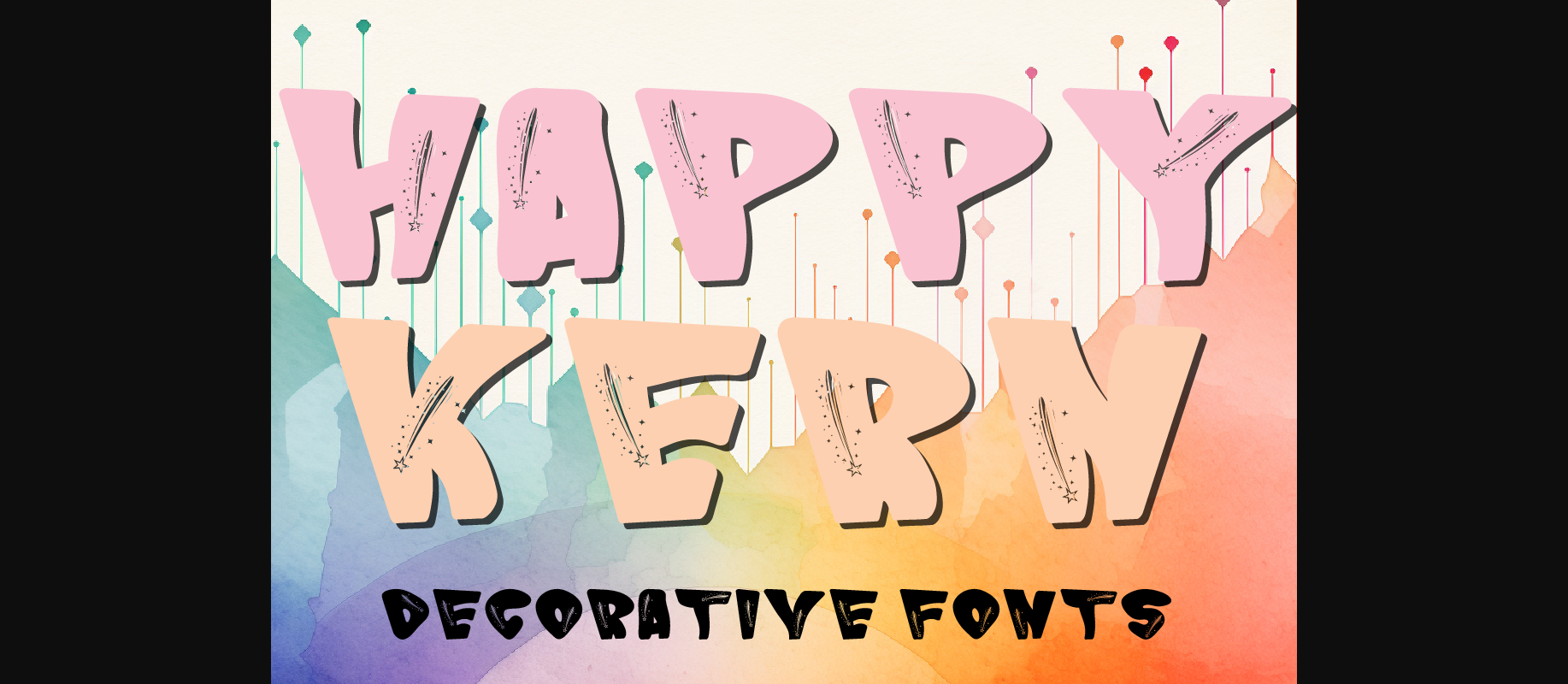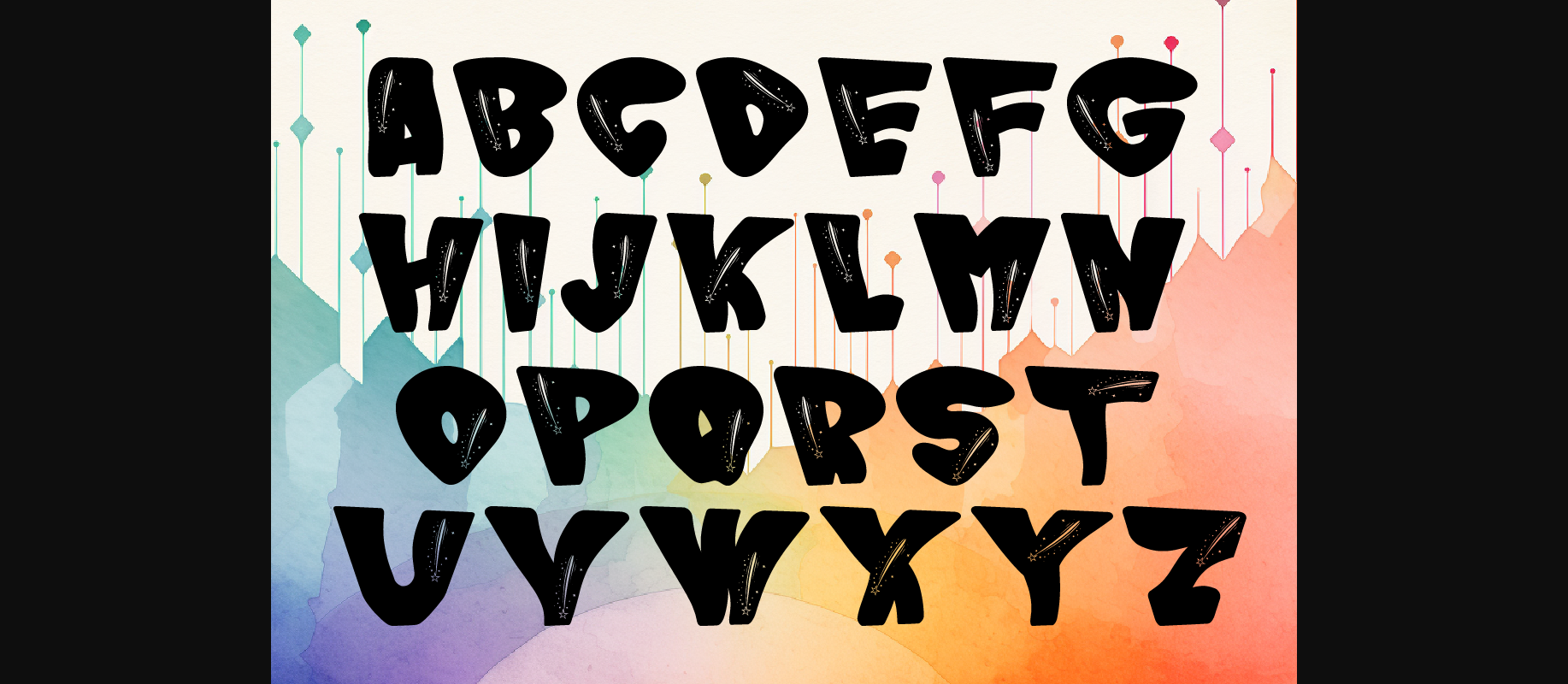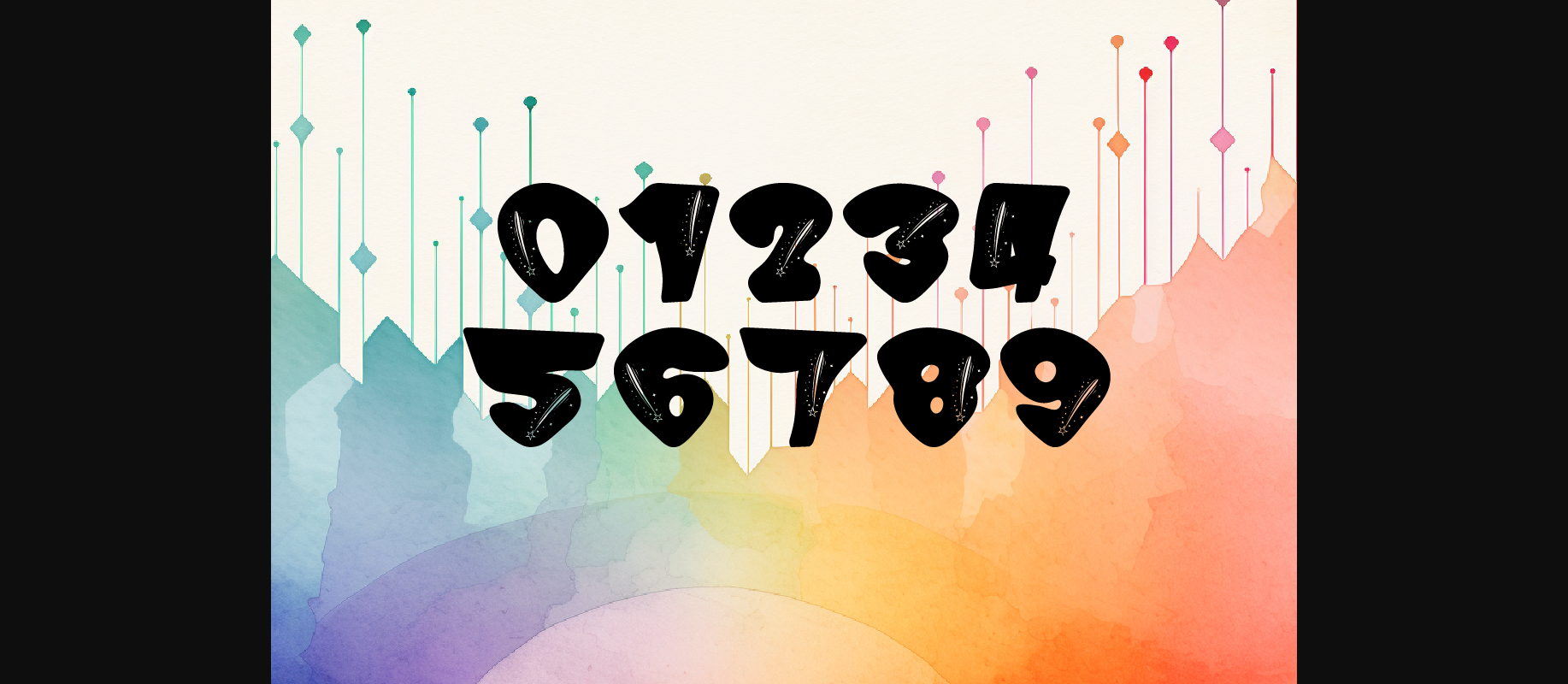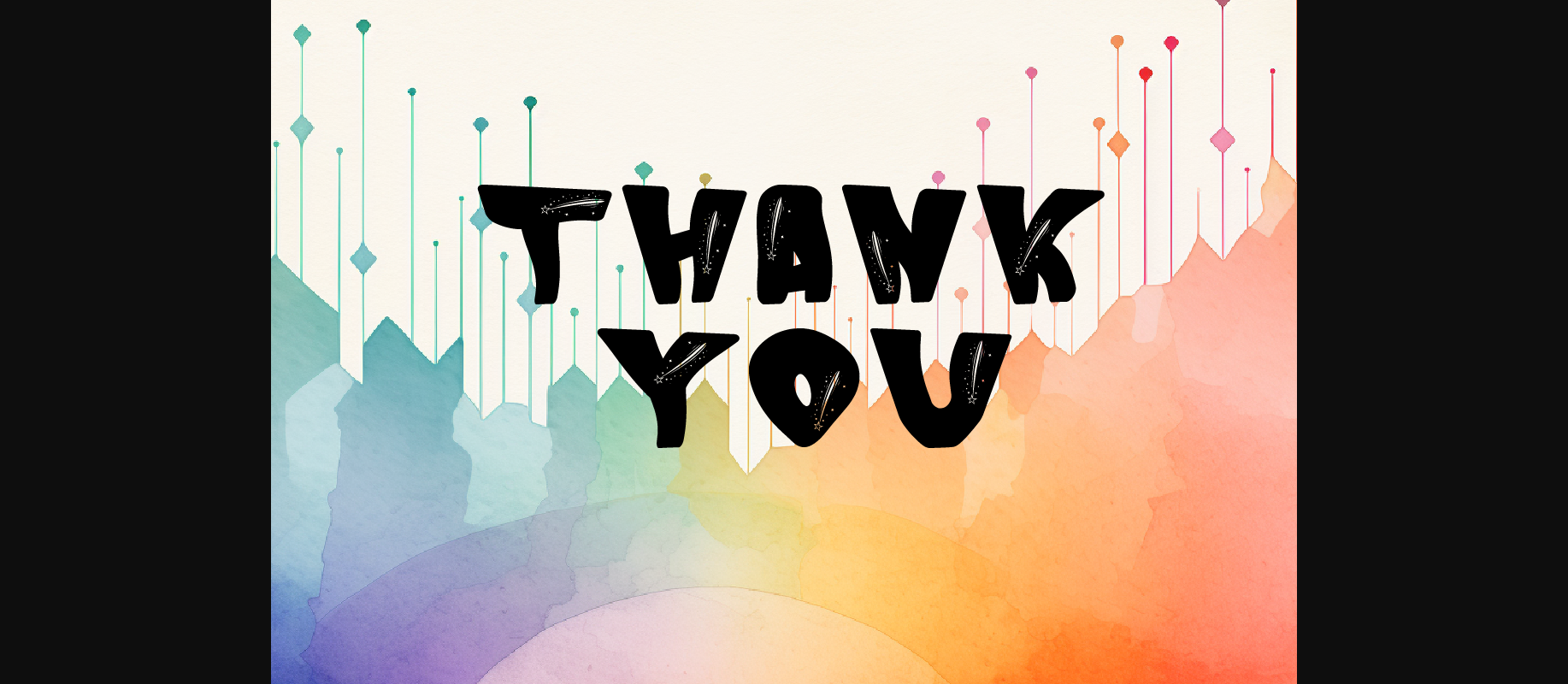
Happy Kern Font
Introducing “Happy Kern Decorative Fonts” — a whimsical and captivating collection designed to elevate your projects to new heights of creativity and charm! Each of the 26 capital letters and 10 numbers is meticulously crafted with a delightful shooting star shape integrated into the design, adding a touch of magic and fascination to your typography.
Whether you’re designing posters, invitations, logos, or any other creative project, “Happy Kern” fonts offer endless possibilities. Their playful and eye-catching design makes them perfect for a wide range of applications across various fields of art. Let your imagination soar as you incorporate these fonts into your designs to add a dash of joy and wonder.